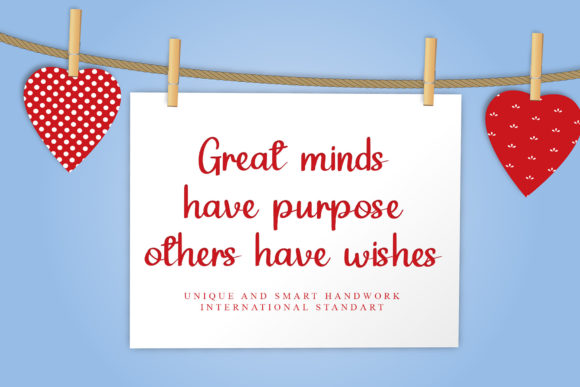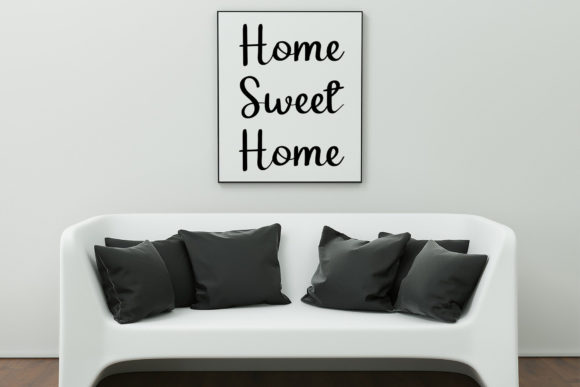
Interior Font
db-ku.com - Script & Handwritten -- Interior is a simple and flowing handwritten font. This adaptable font will look great on a variety of design ideas. It will add a fun and friendly touch to each of your projects!